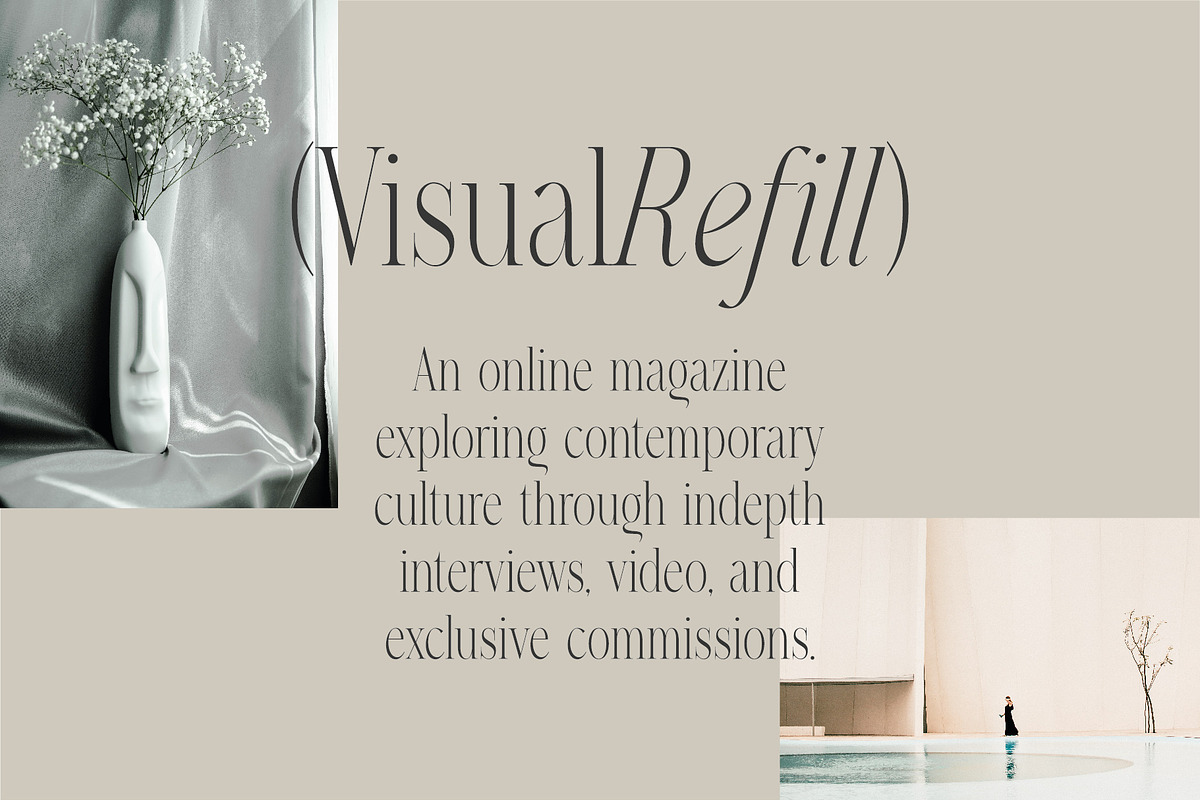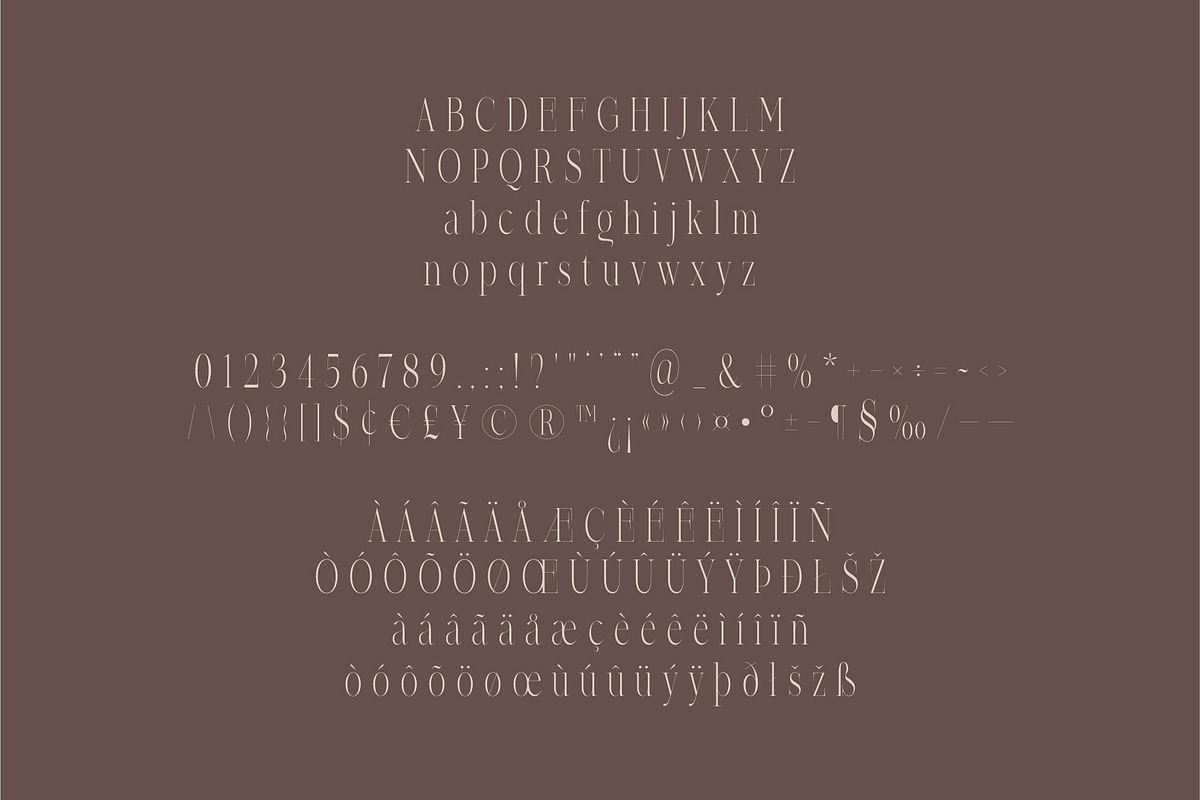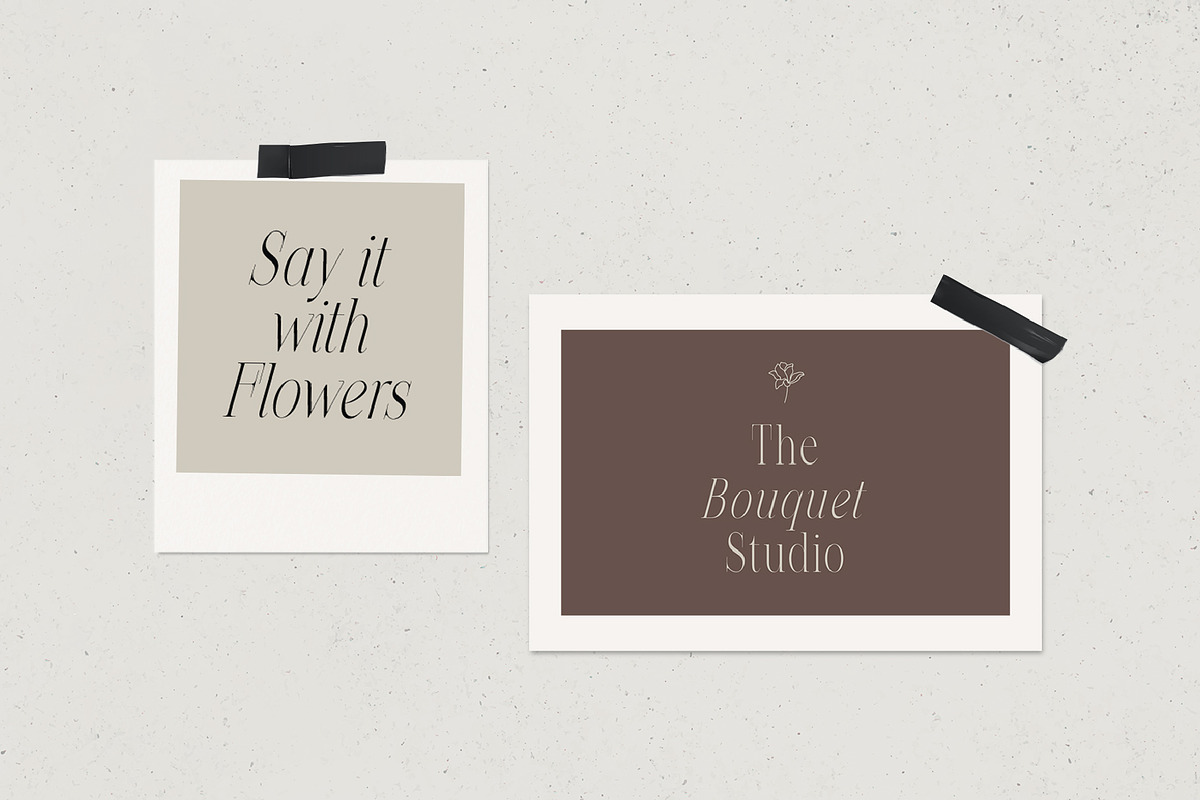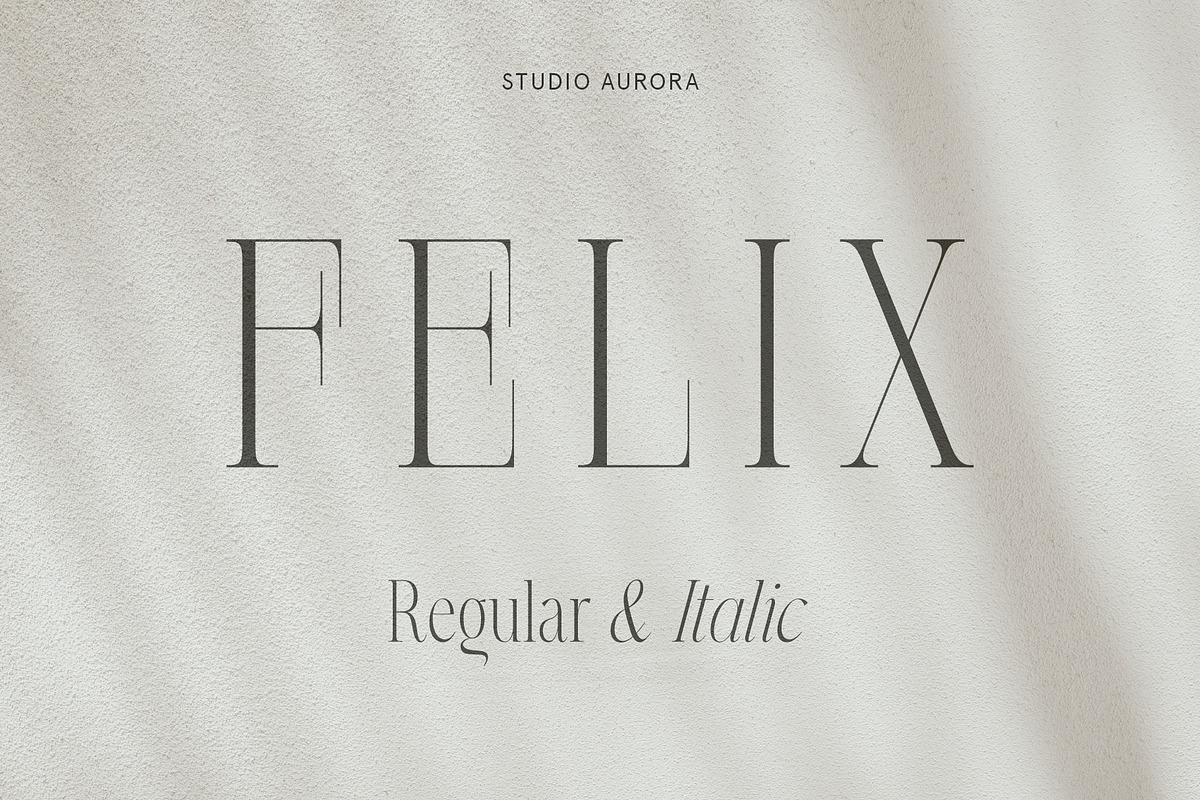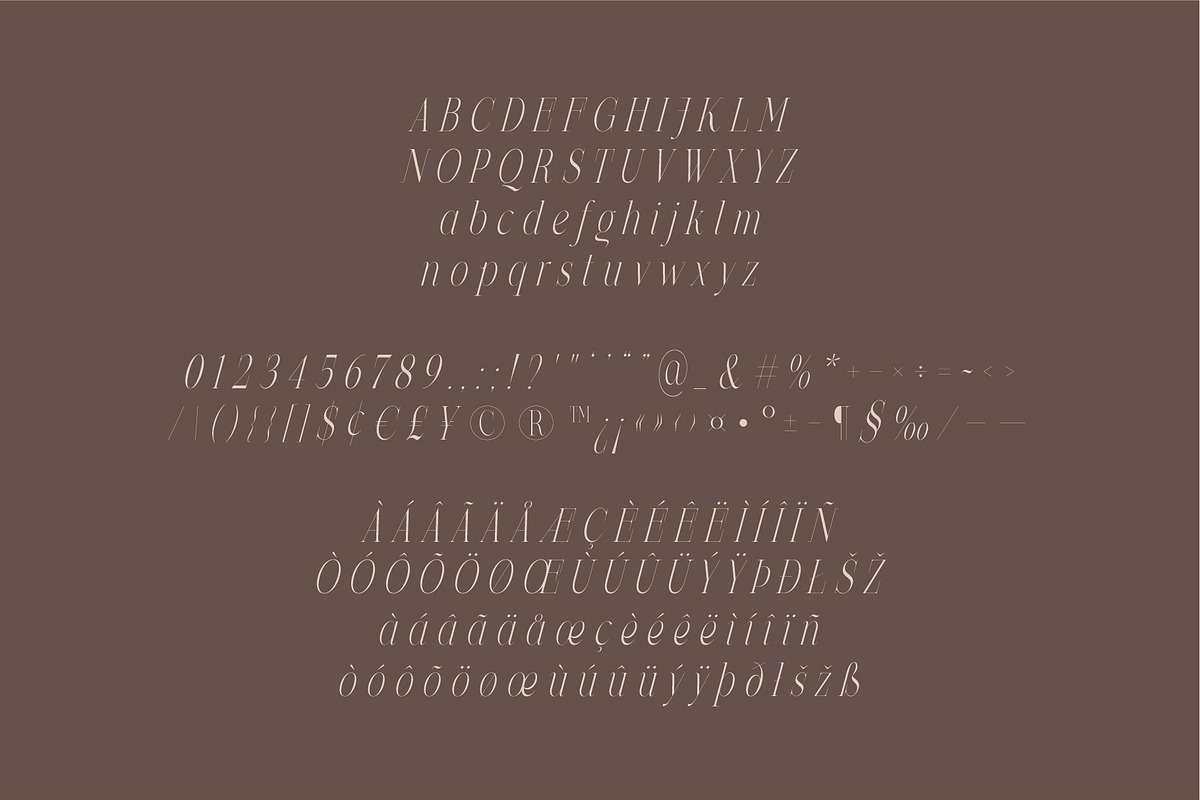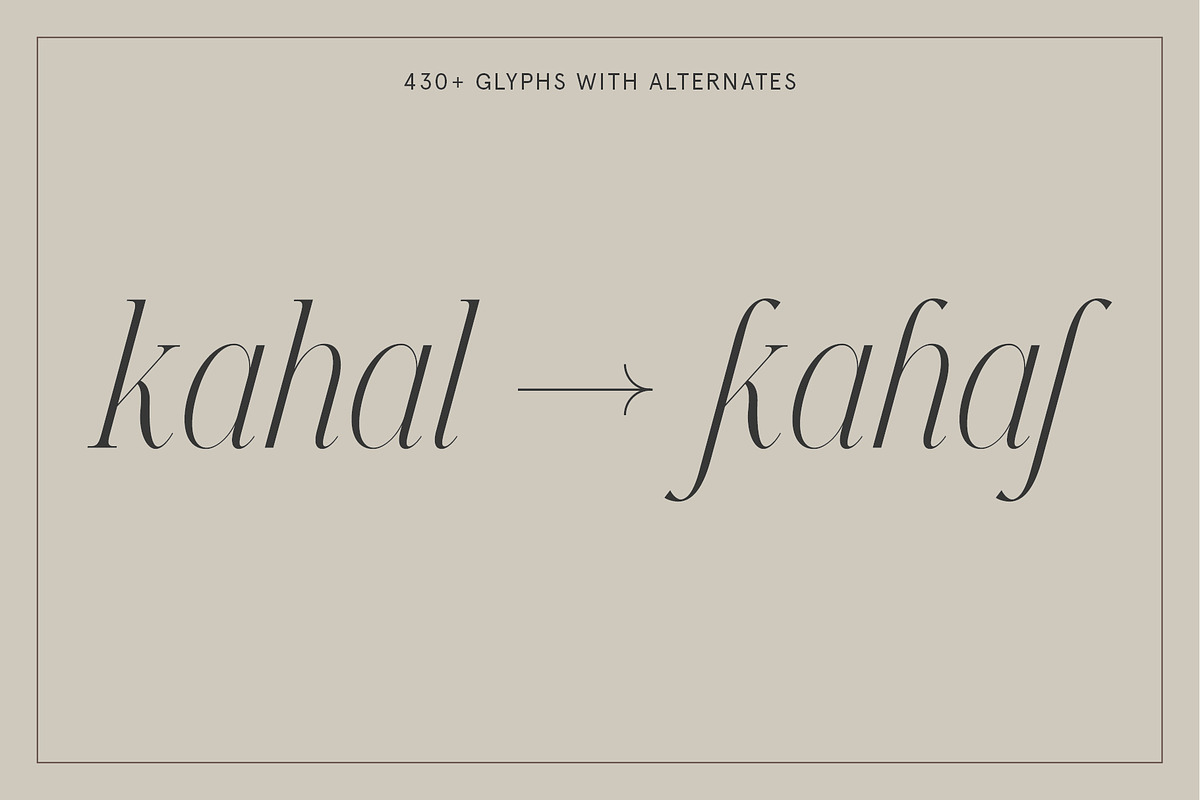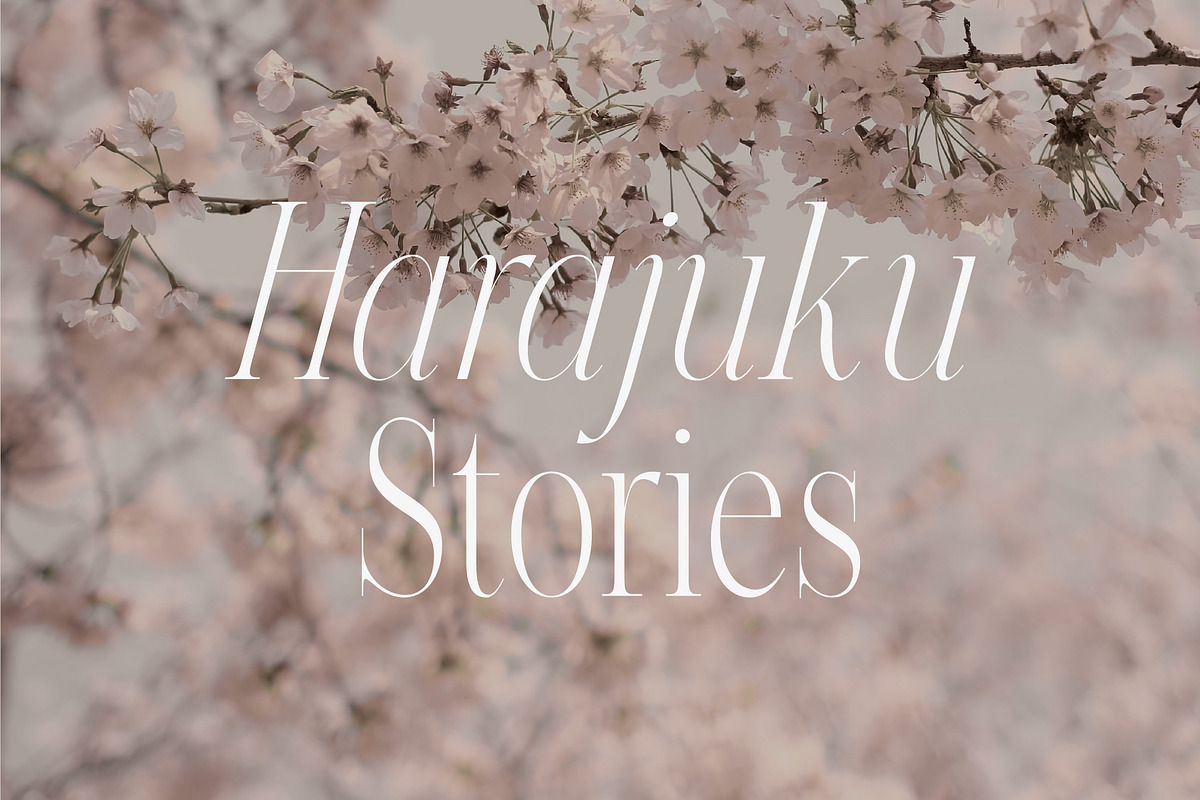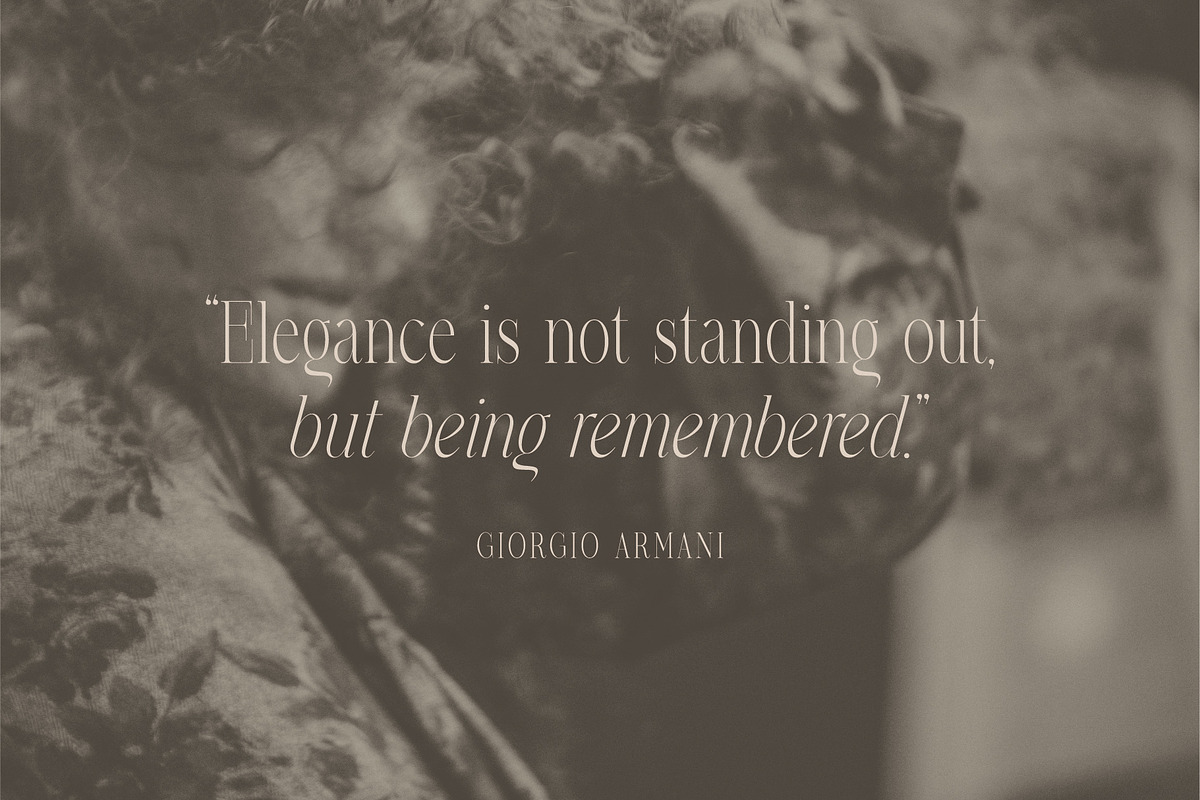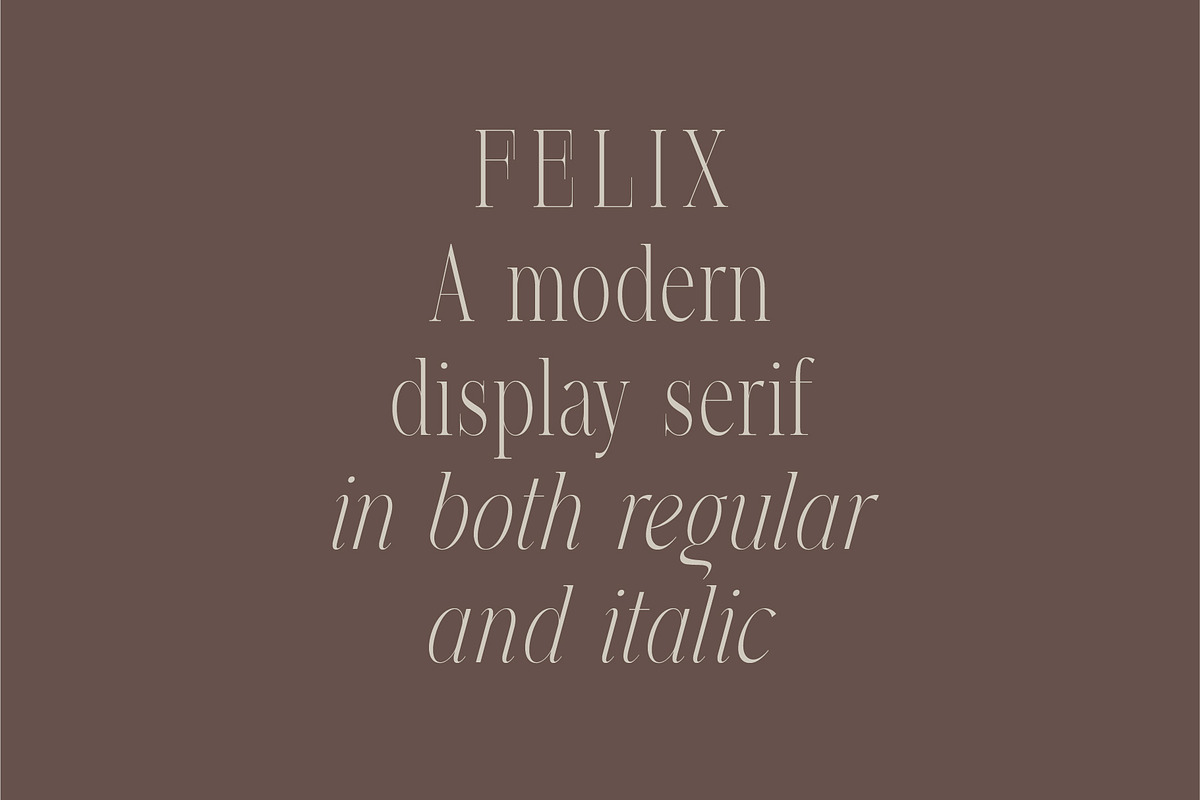
Felix - Condensed Display Serif Font
Introducing our new typeface, Felix - A stylish and elegant, condensed display serif typeface, that comes in two styles, regular and italic to create great variety in your designs.
This is primarily a display font (but can also be used for body copy) that we recommend using in the following types of work; magazines (titles and layouts), logos and branding, invitations, quotes, blog headers, posters, and advertising.